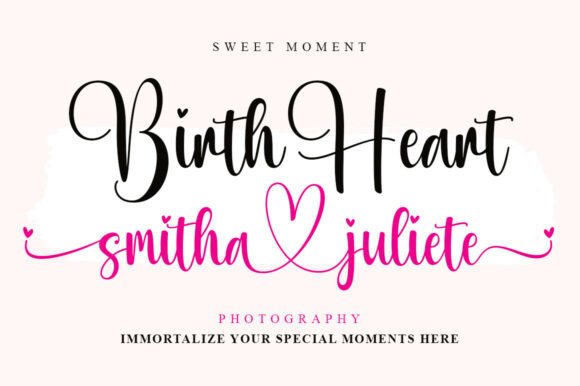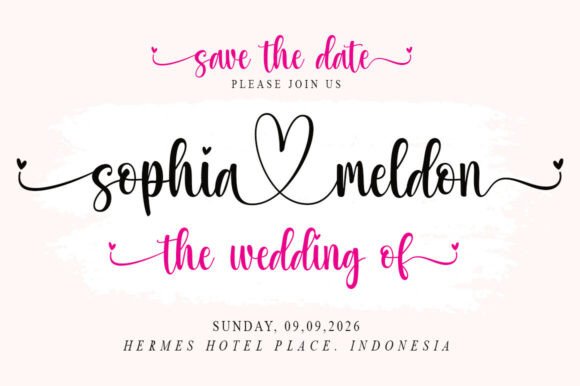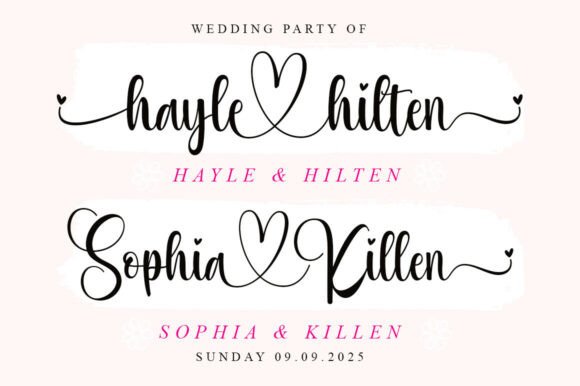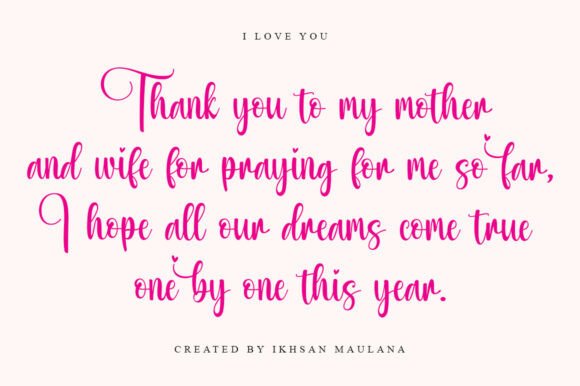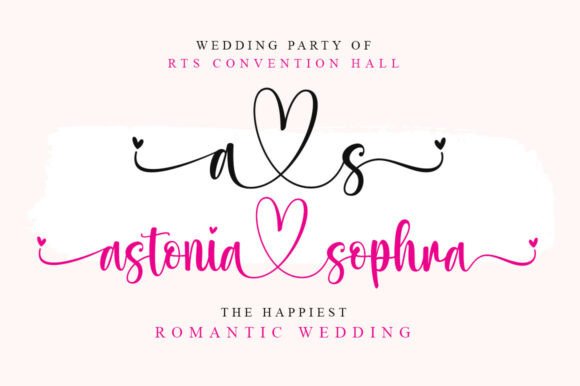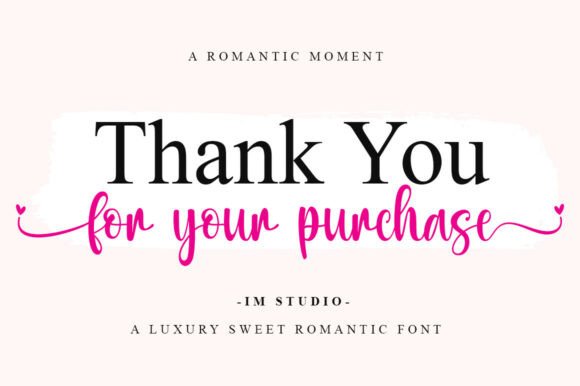
Introduction to Smitha Juliete Font
As you sit at your desk, surrounded by scraps of paper, colored pencils, and a laptop, you’re struck with inspiration for your next creative project. The idea for a heartfelt Valentine’s Day card or a playful birthday invitation suddenly pops into your mind. The excitement builds up, and you can’t wait to bring your vision to life. But, there’s one crucial element missing – the perfect font. This is where the enchanting ‘Smitha Juliete Font’ comes into play.
With its single-stroke handwriting style and a delicate heart-shaped flourish, this font is a treasure trove of design potential. Whether you’re a professional designer or a crafty enthusiast, the Smitha Juliete Font is an invaluable resource that can elevate your creative project from ordinary to extraordinary. Its versatility and high-quality design make it an ideal choice for a wide range of applications, from free download graphics to transparent background sublimation designs.
Key Features of Smitha Juliete Font
- High-quality design resource suitable for various creative projects
- Unique script font with elegant and modern design elements
- Supports a wide range of languages and characters
Honest Review: Smitha Juliete Font
As a designer, I’m always on the lookout for high-quality design resources that can elevate my creative projects. Recently, I had the chance to try out the Smitha Juliete Font, and I’m excited to share my honest review.
Here are the things that work well:
- ✨ Unique and elegant design style that’s perfect for creative projects
- ✨ High-quality font files that render beautifully on both desktop and mobile devices
- ⚠️ Limited character set, which may not be suitable for complex texts or lengthy content
- ⚠️ Not ideal for designs that require a transparent background, as the font’s design may not render well
Overall, I’m impressed with the Smitha Juliete Font’s unique design style and high-quality font files. While it may have some limitations, it’s an excellent choice for designers looking for a free, elegant font for their creative projects.
To get the most out of the Smitha Juliete Font, experiment with different font sizes, colors, and combinations to achieve a unique look for your creative project.
The Smitha Juliete Font is suitable for a variety of creative projects, including branding, graphic design, and digital art. Its transparent background makes it ideal for overlaying text on images, while its high quality ensures crisp and clear text.
Alternatives to Smitha Juliete Font
The Great Vibes Font is a high-quality, elegant script font perfect for creative projects that require a touch of sophistication. It’s ideal for use in wedding invitations, branding materials, and other design elements where a delicate, cursive feel is desired. Great Vibes Font offers a more refined and polished look compared to Smitha Juliete Font, making it suitable for formal and professional designs.
Alex Brush Font is a beautiful, handwritten font that’s perfect for adding a personal touch to design projects. It’s great for use in logos, social media graphics, and other creative assets where a unique, handwritten feel is desired. Alex Brush Font offers a more organic and expressive look compared to Smitha Juliete Font, making it suitable for projects that require a more artistic and emotive tone.
Carolyna Pro Font is a high-quality, modern script font that’s perfect for use in creative projects that require a touch of elegance and sophistication. It’s ideal for use in branding materials, website design, and other design elements where a refined and polished look is desired. Carolyna Pro Font offers a more contemporary and sleek look compared to Smitha Juliete Font, making it suitable for modern and professional designs.